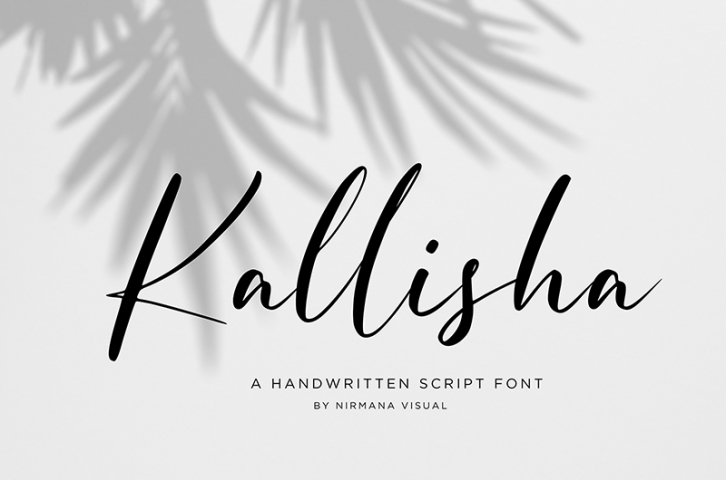
Kallisha – Handwritten Script Font
Say hello for our best seller †Kallisha †with Natural Handwritten Artistic Style, this is perfect for branding, logos, packaging, masterheads and more.